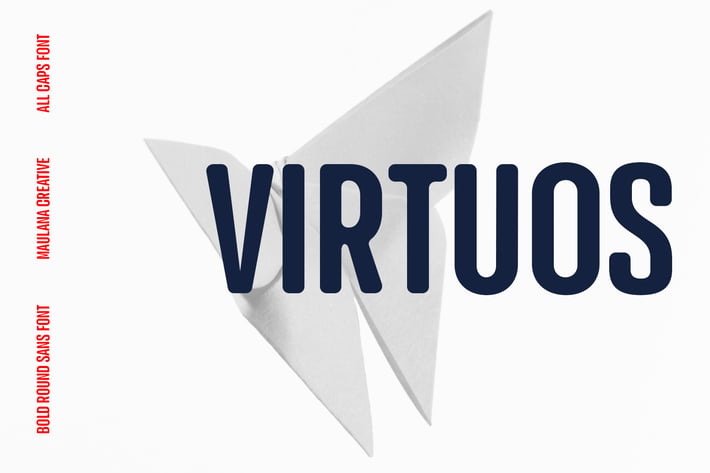
Virtuos Sans Display Font
Virtuos is a modern round sans serif font. Bold stroke, fun character with a bit of ligatures and alternates. To give you an extra creative work. Virtuos font support multilingual more than 100+ language. This font is good for logo design, Social media, Movie Titles, Books Titles, a short text even a long text letter and good for your secondary text font with script or serif. Make a stunning work with Virtuos font.